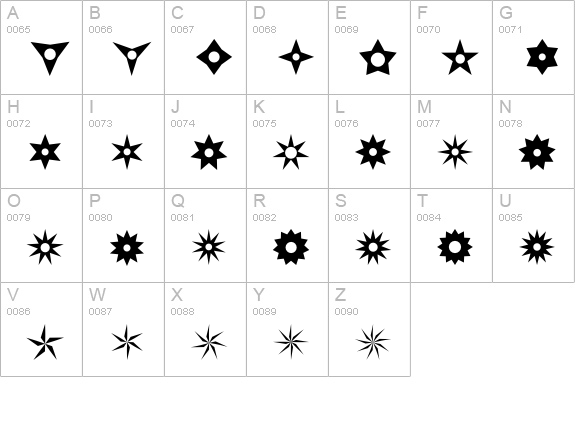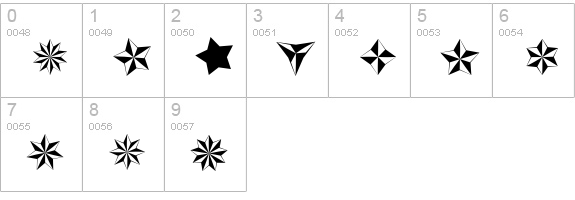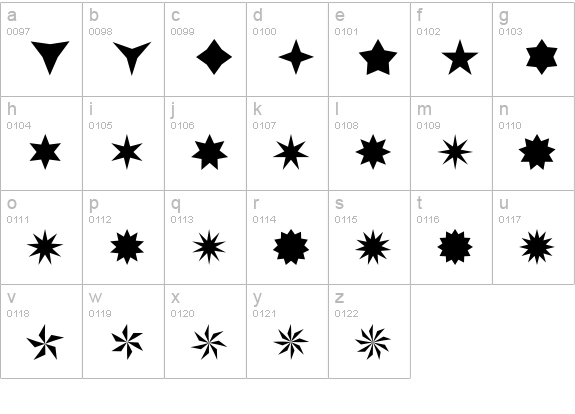
AltemusStars Font Details
AltemusStars font is a stunning and versatile typeface that exudes elegance and sophistication. With its sleek lines and stylish curves, this font is perfect for a wide range of design projects, from logos to branding to invitations. The unique character shapes and flourishes add a touch of whimsy and charm to any text. What sets AltemusStars font apart is not just its aesthetic appeal, but also its accessibility. This font is available for free download at FontsMarket.com, making it easy for designers and creatives to access and use in their projects. Whether you're working on a personal project or a professional design, AltemusStars font is sure to elevate your work and leave a lasting impression. Don't miss out on the opportunity to enhance your designs with the timeless beauty of AltemusStars font. Download it for free today and see the difference it can make in your creative endeavors.